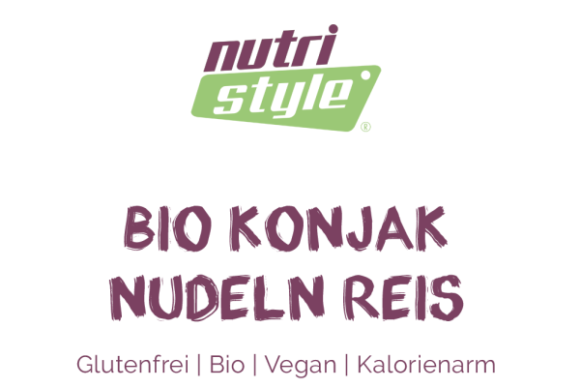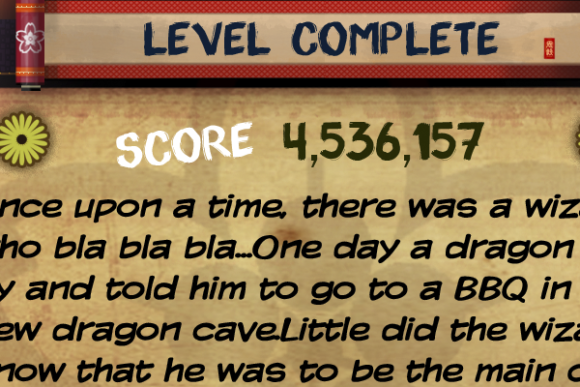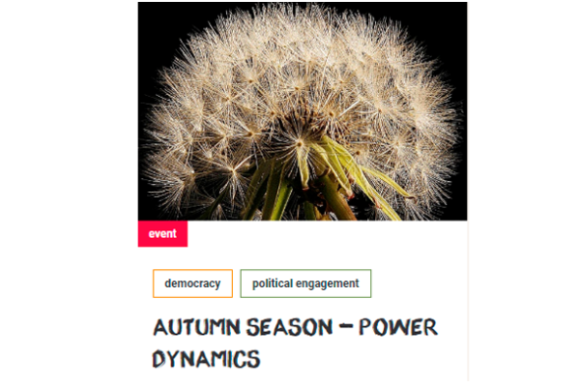
Appo Paint Font
Appo Paint Font Poster 1
About Appo Paint Font
Appo paint was designed based on the events that occurred in 2006 in Oaxaca, when there were riots and street takeovers and protest graffiti flooded the city… one of those graffiti was the inspiration for this font…
many people have identified with the font… I imagine that graffiti on the street and the font have the same message of protest and strength.